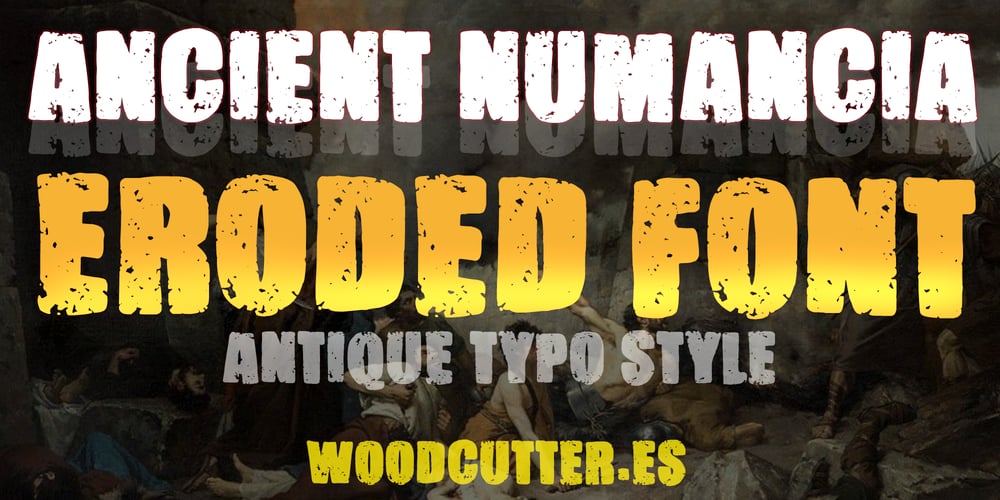
Ancient Numancia Font Family was designed by Jordi Manero and published by Woodcutter. Ancient Numancia contains 1 styles and family package options. “Ancient Numancia” is an uppercase font with accents, featuring a complete character set and a robust, worn-out appearance. Each letter looks eroded, as if it had withstood the passage of time, evoking the solidity and resilience of an ancient civilization. Its irregular texture and weathered details make it seem as though it were carved in stone, giving it an archaic and monumental touch. This typeface is ideal for projects seeking to convey a sense of antiquity, history, and strength, making it perfect for posters, historical logos, or designs inspired by past eras.